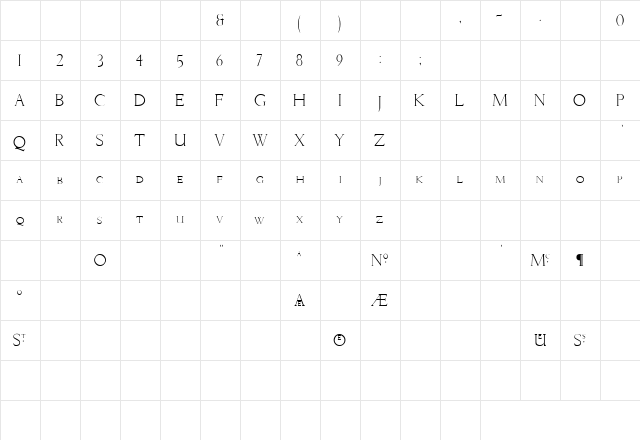
Livia Regular Font Preview
Livia Regular
Design Context for Livia Typeface
Livia is a composed and adaptable typeface that performs quietly and consistently across a wide range of design contexts.
Pro Tip: Pair Livia with a font of contrasting weight or personality to build a more expressive typographic hierarchy.